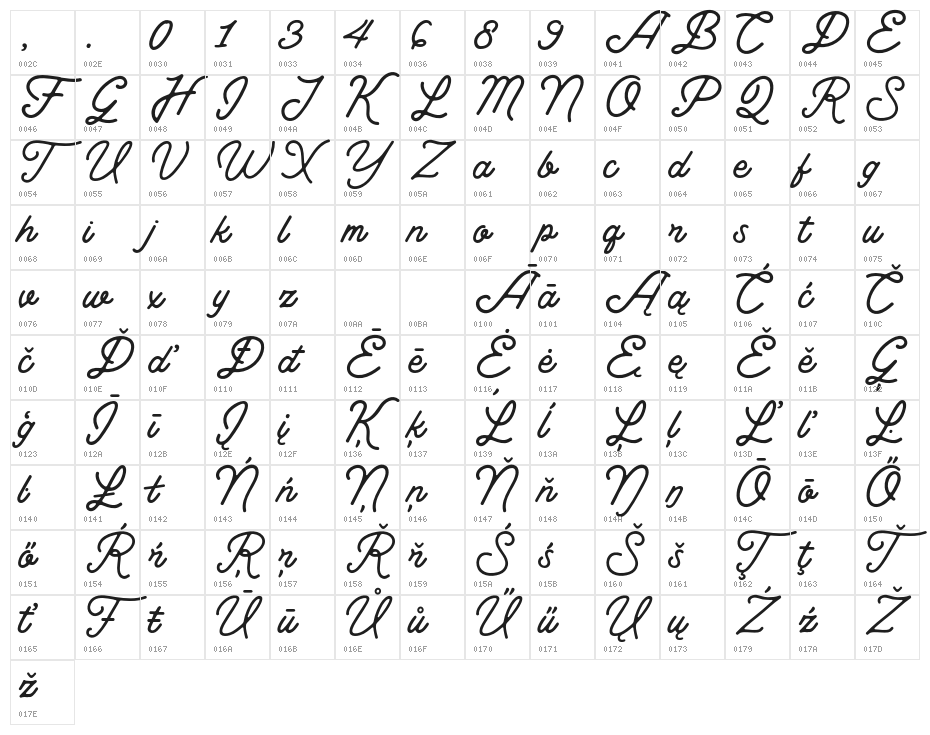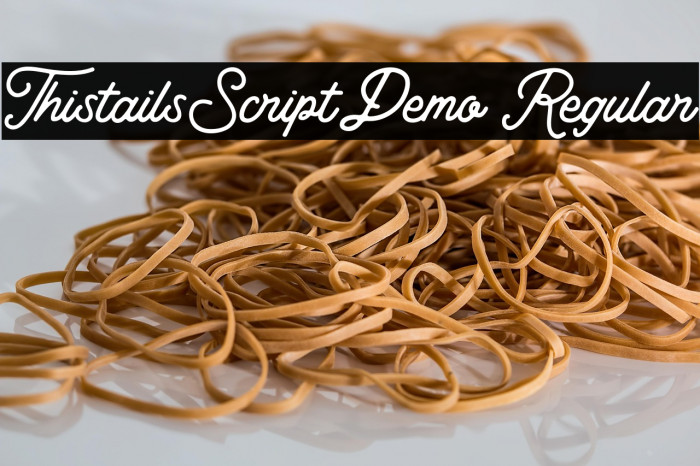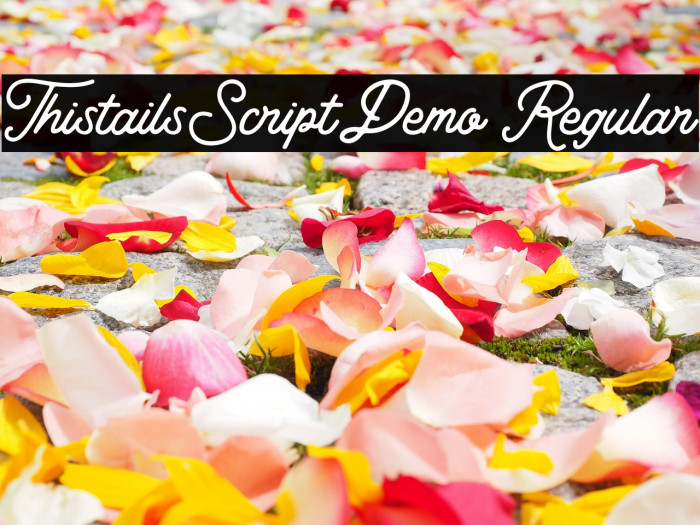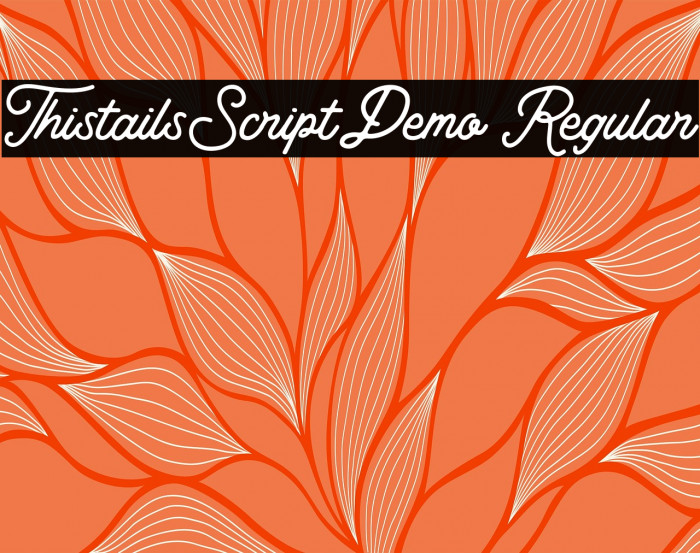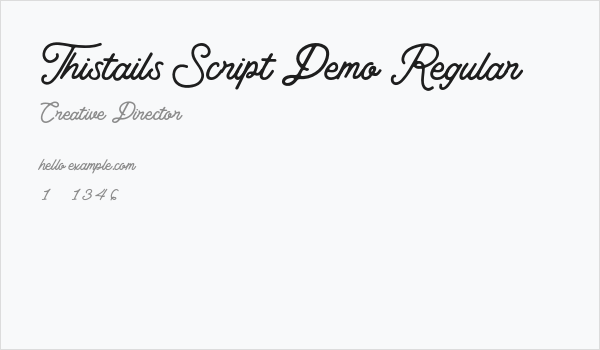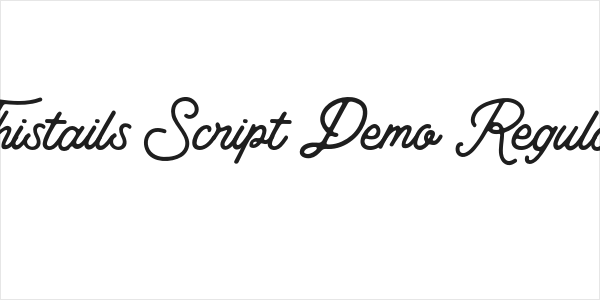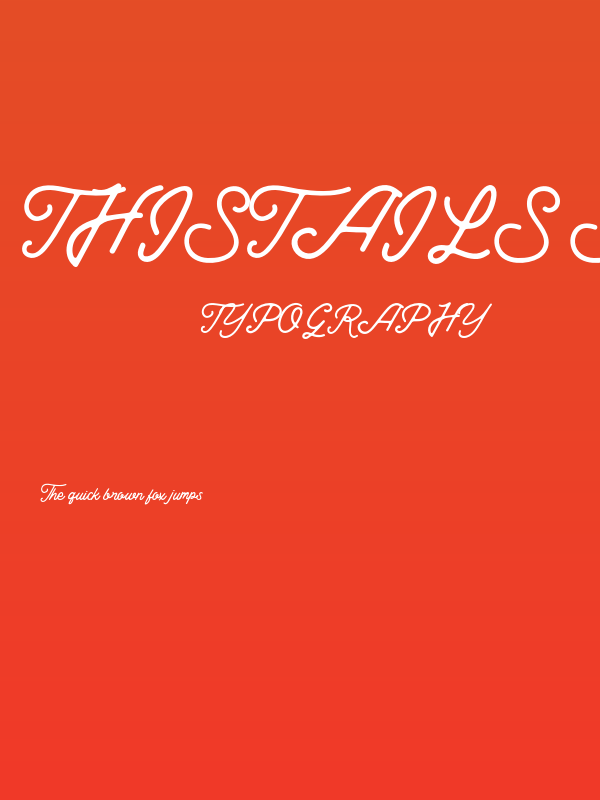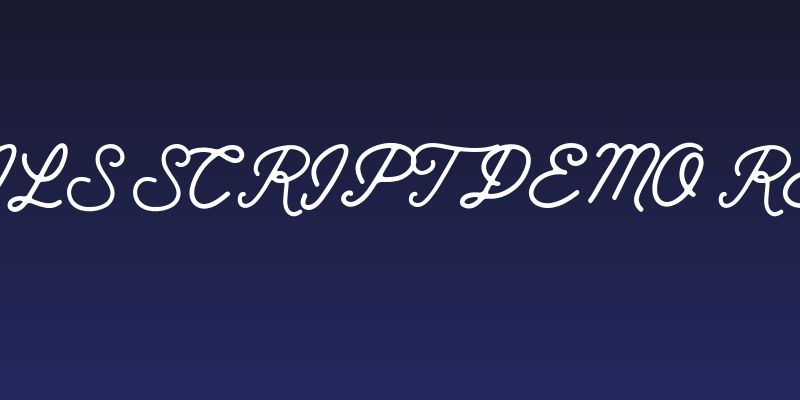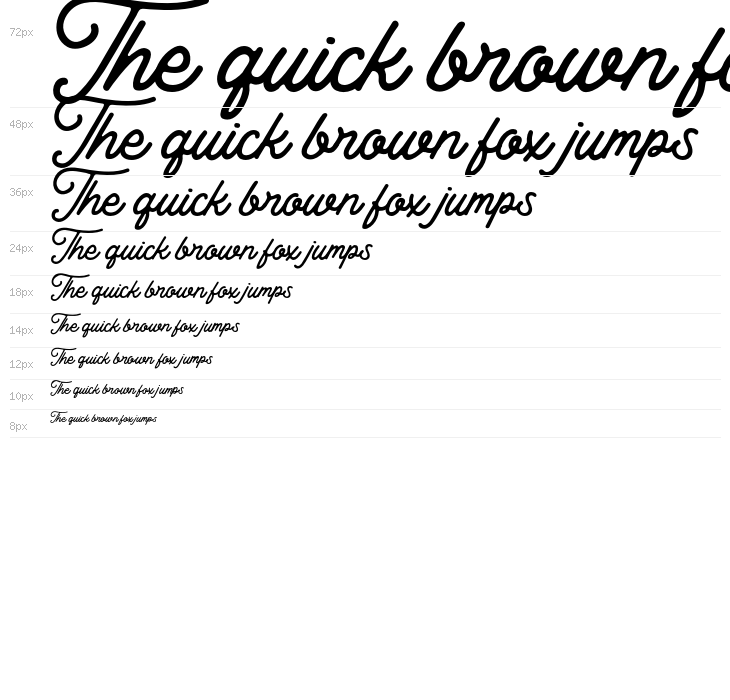
Thistails_Script_Demo Regular Font
Thistails_Script_Demo Regular Description
This script font features elegant, flowing letterforms with a handwritten appearance. The uppercase letters are slightly more ornate, with smooth curves and loops that give a sense of fluidity and grace. The lowercase letters maintain a consistent style, with rounded edges and a slight slant that enhances the cursive feel. The numerals are clear and legible, designed to complement the overall script style. This font includes a selection of special characters, such as punctuation marks, which are crafted to match the elegant aesthetic. The overall design is sophisticated and stylish, making it suitable for a variety of creative projects.